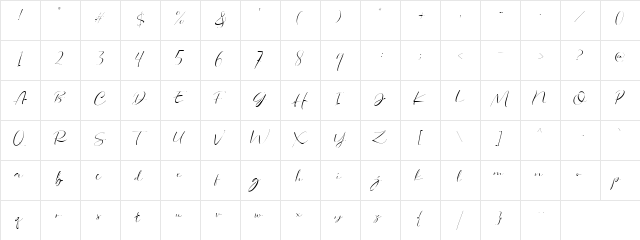
Dorothy Clark Script DEMO Regular
Design Context for Dorothy Clark Script DEMO Typeface
Dorothy Clark Script DEMO flows with the natural rhythm of handwritten lettering, making it ideal for designs that call for warmth and personal expression.
Font Pairing: Combine Dorothy Clark Script DEMO with a simple geometric sans for maximum contrast — the tension between flowing curves and clean structure is a classic typographic pairing.
Pro Tip: Use Dorothy Clark Script DEMO for short runs of text — names, titles, or taglines. Extended body copy in script faces tires the eye quickly.